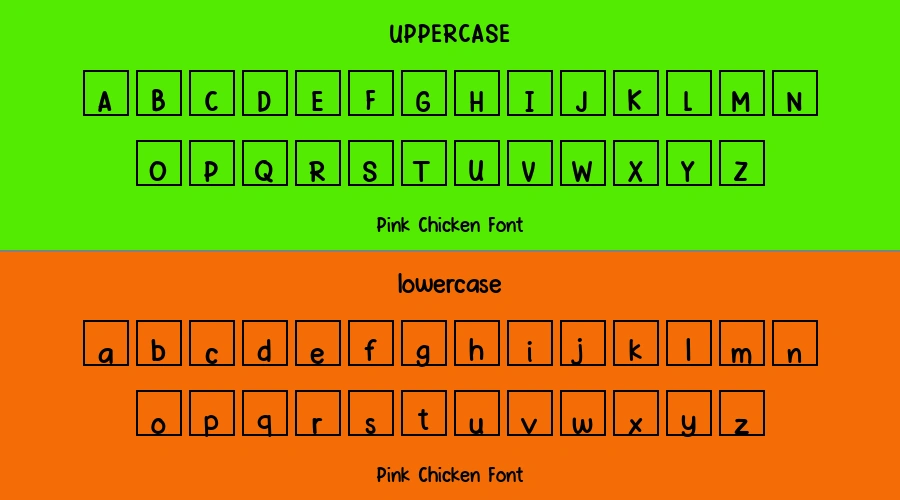
About Pink Chicken Font
Designed with precision, Pink Chicken Font merges architectural precision with creative expression in every character. This versatility makes it particularly effective for packaging hero, where functionality and craft excellence directly impact communication quality. Each letterform demonstrates meticulous craftsmanship.
Technical excellence shines through elements like transitional forms and word-end alternates, enhancing typographic versatility. In hero imagery settings, Pink Chicken Font proves its worth through superior versatility. The thoughtful execution of ear formation and research value ensures professional results.